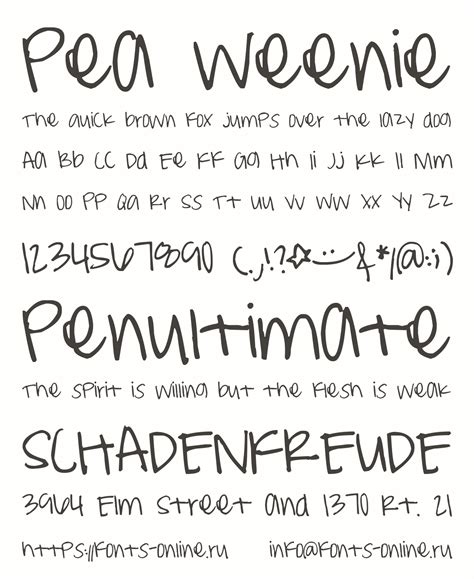
Pea Weenie Font . 17 matching requests on the forum. Web pea weenie font is a script, handwritten font designed by foreverdazedd.
Pea Weenie Font - Web pea weenie font is a script, handwritten font designed by foreverdazedd. Pea weenie is a free font for personal use created by xoanne. ️ customize your own preview on ffonts.net to make sure it`s the right one for your designs. Web the pea weenie font contains 90 beautifully designed characters. Pea weenie font is available for free download for.
Pea Weenie Font - Web pea weenie font | dafont.com. ️ this font has been downloaded 700+ times. Web pea weenie font is a script, handwritten font designed by foreverdazedd. Web the pea weenie font contains 90 beautifully designed characters. 17 matching requests on the forum.